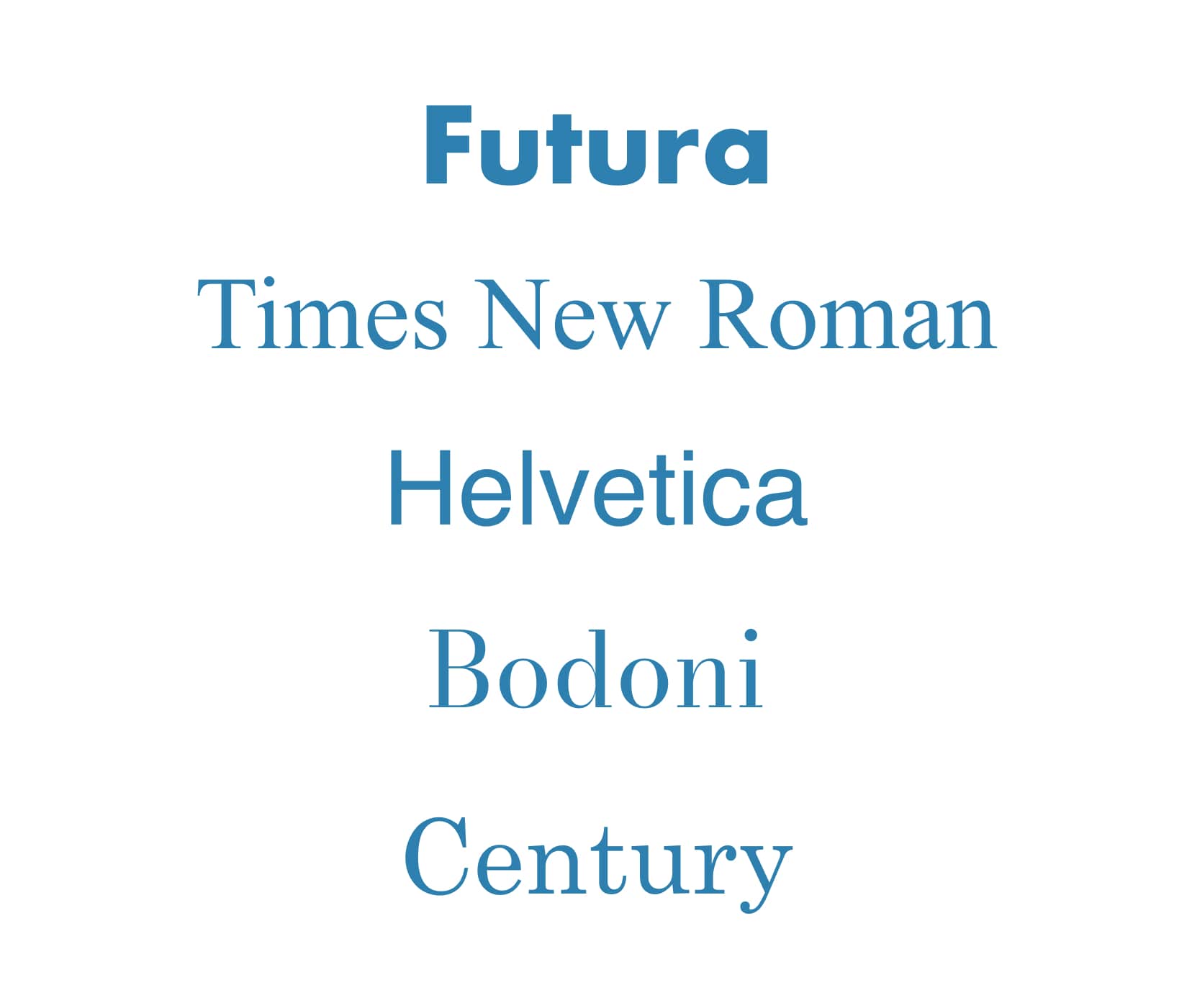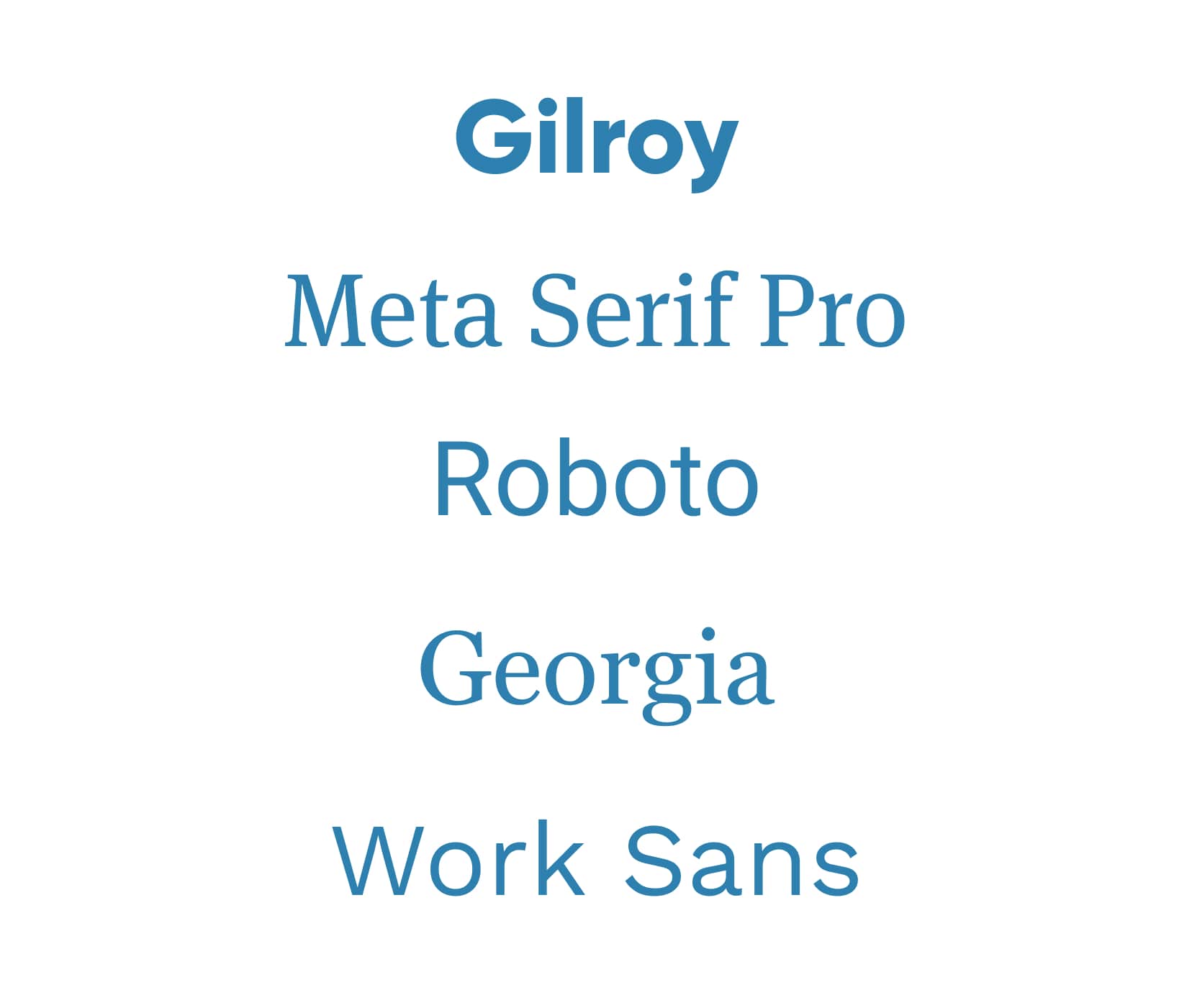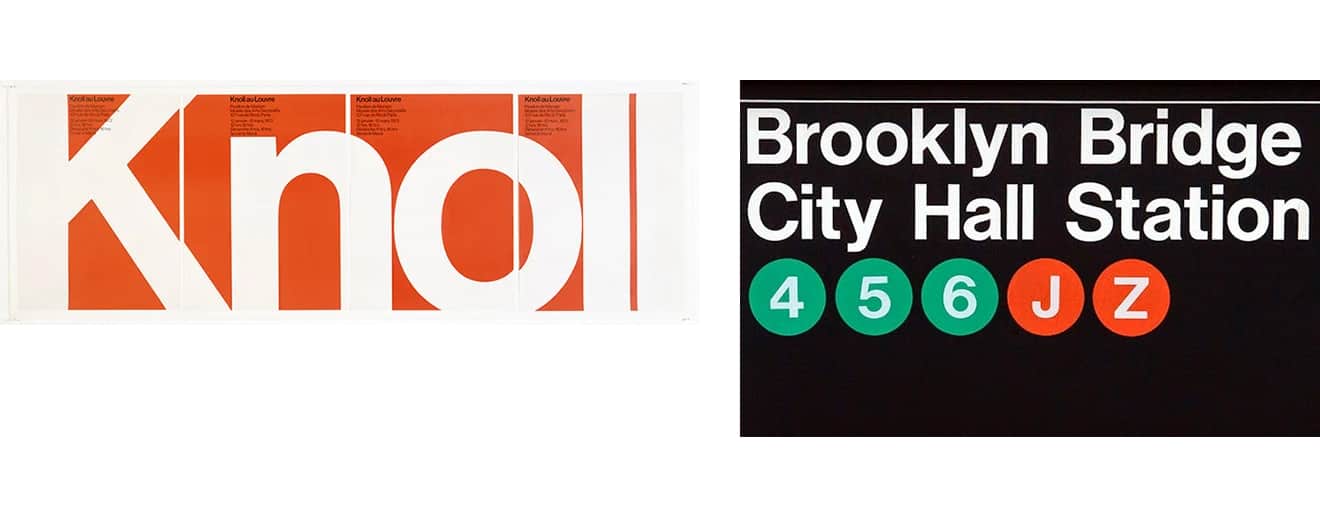
There weren’t as many web fonts to pick from when I started my freelance career in the early 2000s, still I was always overwhelmed by the number of fonts to choose from. With no formal education in design or typography, my choices were uninformed and limited.
It’s kinda funny to look back and realise that it was harder for me to choose fonts when there were fewer to choose from than now. I had moved away from being a freelance graphic designer in the years since then, but I still do branding, web design and graphic design work for my own projects. I acquired enough experience and learned so much about web typography in my career that I naturally came to the conclusion that many designers had reached before me—all you need is 5 fonts.
Massimo Vignelli’s 5 fonts
Massimo Vignelli was one of the best visual communicators of our times. His work had a huge impact on the graphic design of the 20th century. He’s one of the designers, if not the designer, who made Helvetica as popular and common as it is (or was).
An example of how Massimo masterfully used Helvetica in different ways.
He produced vast amounts of graphic design in his incredibly rich career, but only used a few fonts for most of it. In fact, one of his famous quotes is:
In the new computer age, the proliferation of typefaces and type manipulations represents a new level of visual pollution threatening our culture. Out of thousands of typefaces, all we need are a few basic ones and trash the rest.
— Massimo Vignelli
So what were his 5 fonts? They’re fonts that we rarely use today (except Futura).
Massimo Vignelli’s 5 fonts which he built his rich career on: Futura, Times New Roman, Helvetica, Bodoni, Century.
Times New Roman and Helvetica fell out of favour with designers soon after the proliferation of web fonts in the early 2000s. They were the two obvious choices as web safe fonts, as well as Arial which is a copy of Helvetica. Designers wanted more options. And as soon as they could start to experiment with different fonts, they never looked back to the tried and tested heavyweights from the past. It’s now completely common for a designer to always pick a different font for each project. But the question here is—do we really need all these fonts? And should we really just forget about the web safe fonts which we often consider as “boring?”
My 5 fonts
An inexperienced designer thinks that they need a vast amount of fonts to choose from, an experienced one knows that they can use one font in many different ways. Massimo Vignelli’s example of using Helvetica from above illustrates this. It’s not just about which font we choose, but also how we use it. Size, contrast, placement, background and foreground colours, and how it’s combined with other fonts in a design. These are just the basics, but just using these, we can create lots of original designs and variety with a single font. I learned that by trial and error through my career. Being self-taught had a huge role in how long it took me to grasp that it’s not the quantity of fonts that matters, it’s the quality.
I came to the same conclusion as Massimo and many other designers—I don’t need a huge range of fonts of questionable quality to choose from, I only need a few high quality ones. So I created my own list of 5 fonts that I use most often.
My 5 fonts that I keep coming back to: Gilroy, Meta Serif Pro, Roboto, Georgia, Work Sans.
These are the fonts that I’ll try using whenever I start working on something new. If I really can’t make it work, I’ll go and find a new one, like I did when I worked on the UX Buddy project.
How to create your own list of 5 fonts
Here’s a list of types of fonts I think a modern web designer needs to have on their “5 fonts” list:
• A geometric sans serif
• A high quality serif for long text
• A workhorse font
• A web safe font
• A variable font
If you take a closer look, you’ll notice that this list of types of fonts aligns perfectly with my own “5 fonts” list. Gilroy is a geometric sans serif font that I really like because it feels modern (unlike Futura which may look dated in some occasions). Meta is my high quality serif font because it’s really well designed, it works really well for paragraphs and has many OpenType features like ligatures, alternative digit styles and much more.
Roboto is a typical workhorse font family. It comes in many different styles and weights and is very well designed. It consists of a sans serif, a slab serif and a mono style and can be used for anything from long paragraphs to UI labels and code snippets.
Work Sans is a variable sans serif font that I really like. It’s highly legible, even at smaller sizes which makes it great for UI design. The fact that it’s variable means that I can match various weights to get a good balance between font sizes which helps my UI designs look slicker.
And the last is Georgia, an underrated web safe font. It looks quite modern which is fascinating, because it was designed a while ago. It comes with old style figures, often called “lowercase digits.” That makes it great for paragraphs, especially when I need to save a few kilobytes. I have been saying this for a while, web safe fonts don’t suck. They’re completely free as we don’t need to pay to use them and they also don’t add any weight to our websites so they load faster. More on web safe fonts another time.